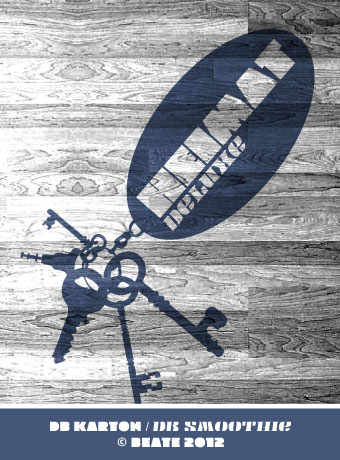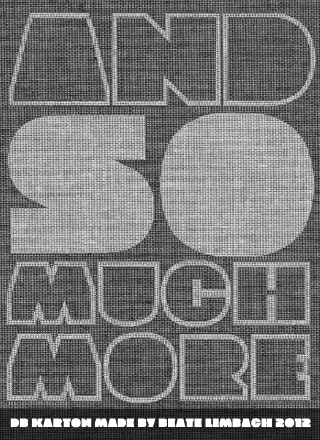
Minimal design with perfect skill. The rounded parts (of C,O,Q,G,U) are optically adjusted. It seems you really like these ample curves. Letters, numbers, punctuation work seamlessly together as demonstrated by your poster. 10/10
Beautiful, with your distinct style. Somehow, I love the M and the O. 10.
Great! Love the S and all puncuation.
10\10
Wow
Bold, strong, excellent! 10/10
Another beautiful and clever sample!
When I see your work I can only stay mute. Great font (as usually)!
This is too awesome for its own good; it could explode from awesomeness overload any minute now!